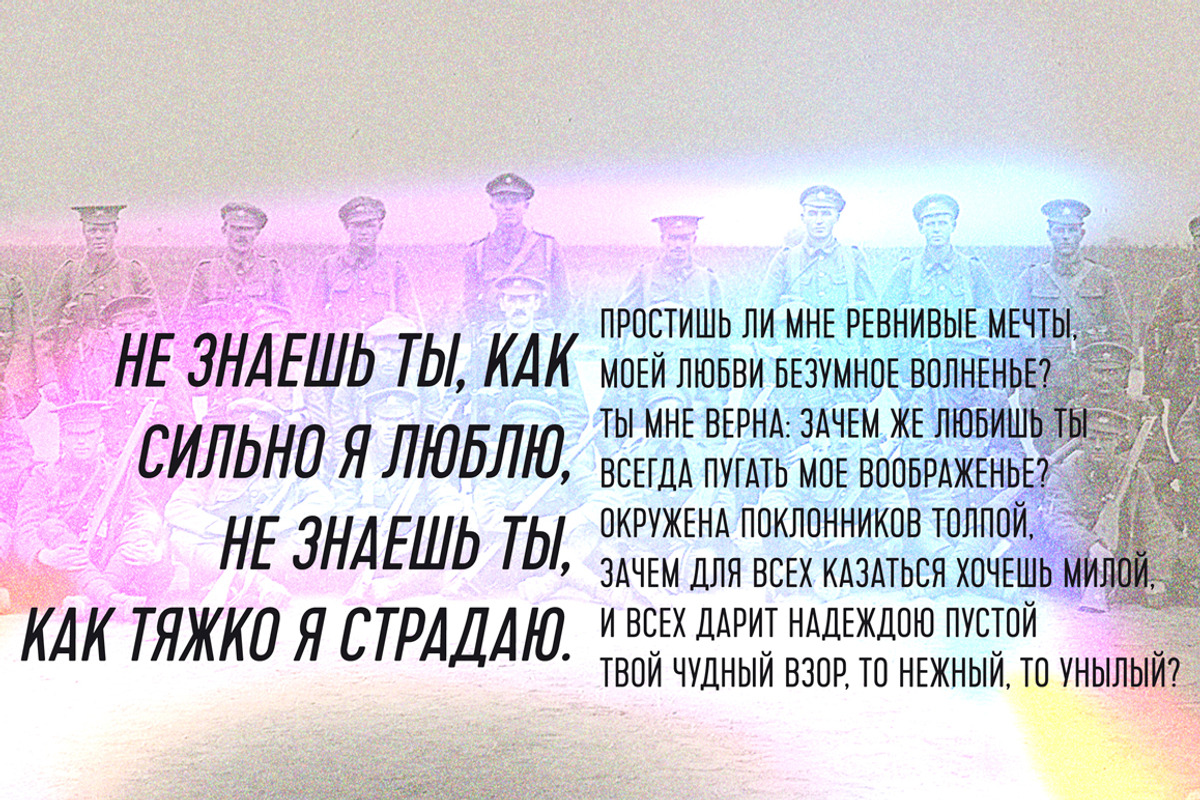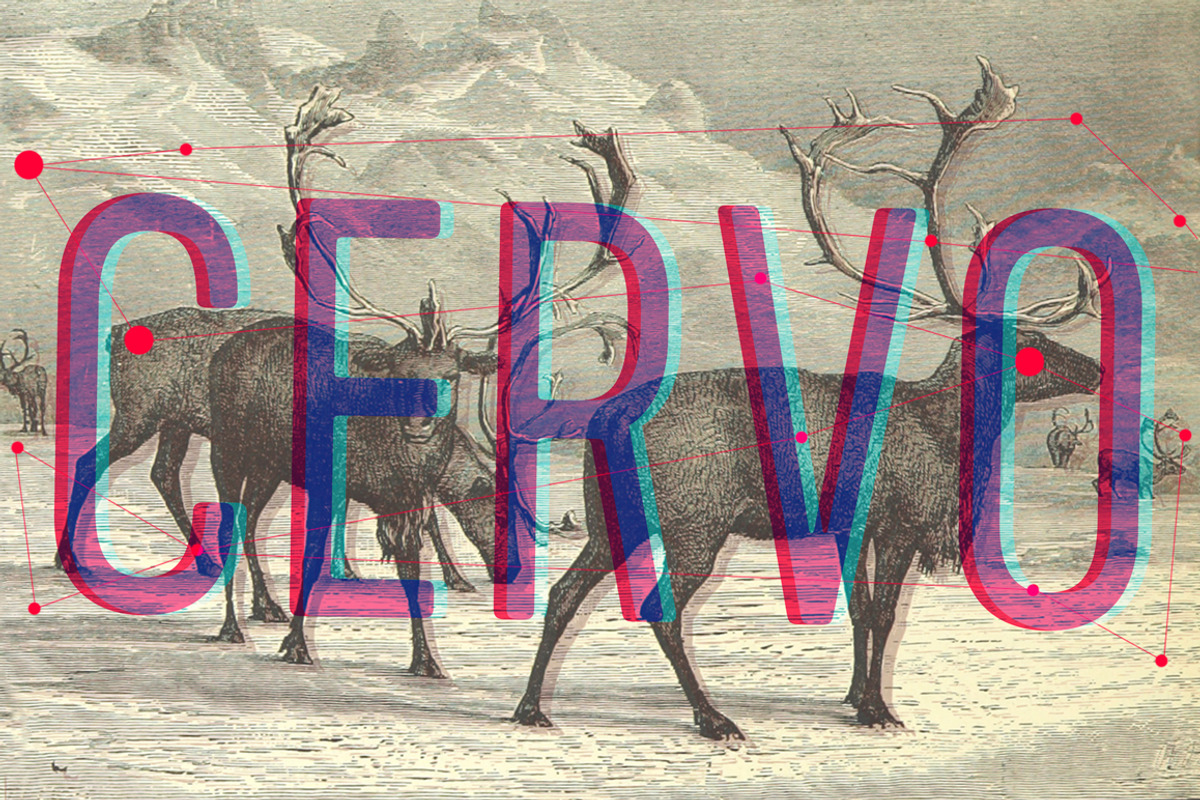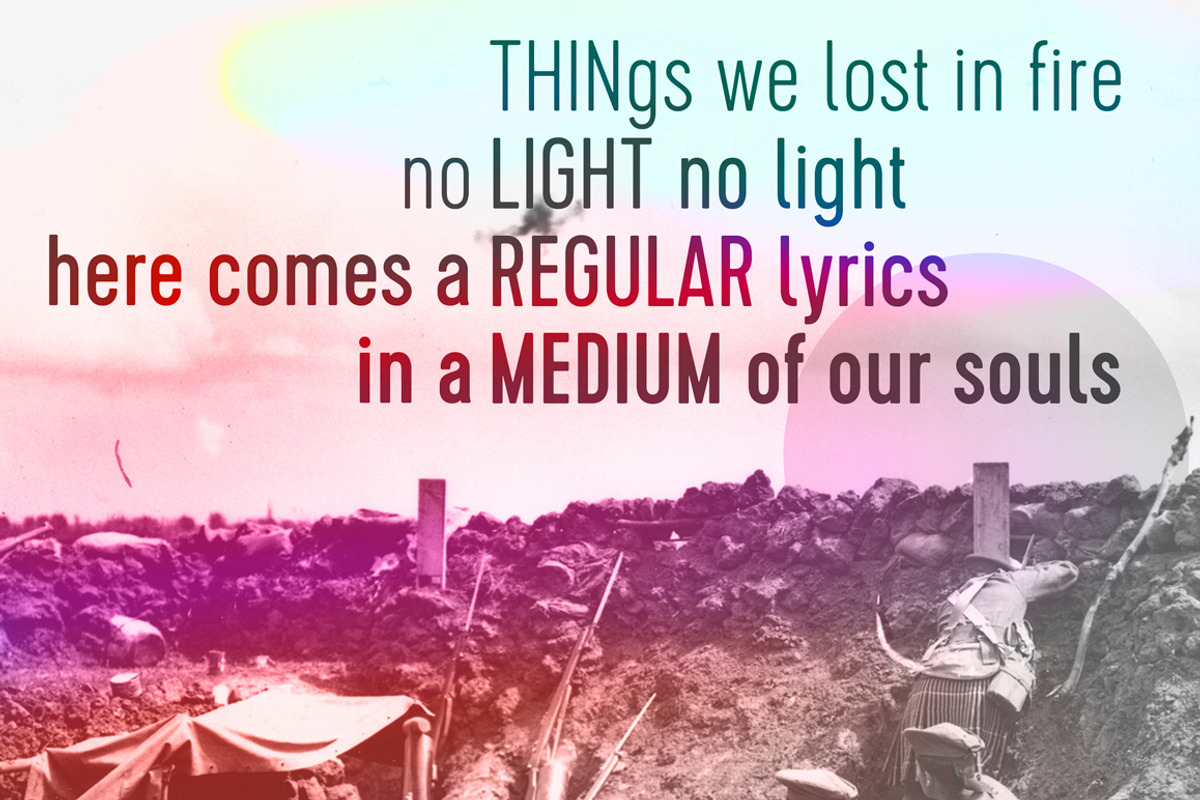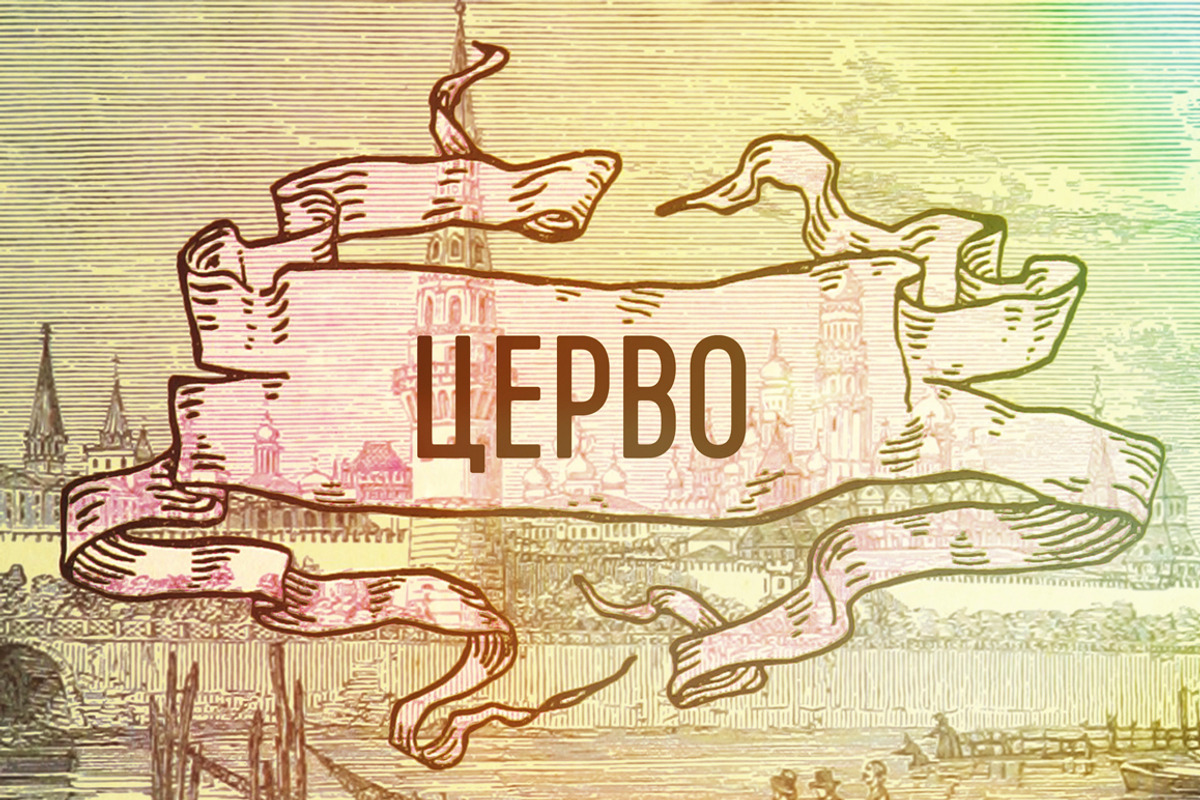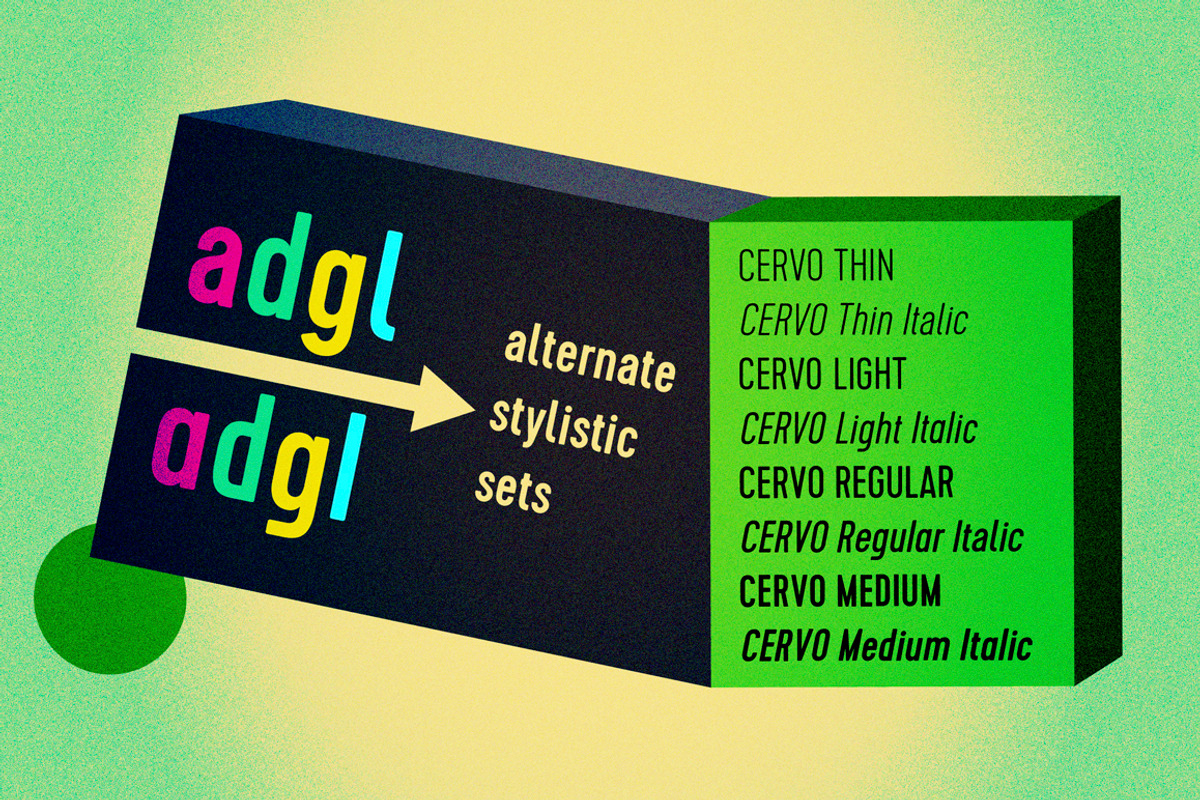
Cervo family fonts
Font Cervo is the younger sister of Kapra. It is characterized by eight different varieties – lower and uppercase characters and in contrast to Kapra is “slimmed” version (from Medium to Thin). It is inspired by a You And Me Monthly published by National Magazines Publisher RSW „Prasa” that appeared from Mai 1960 till December 1973 in Poland.